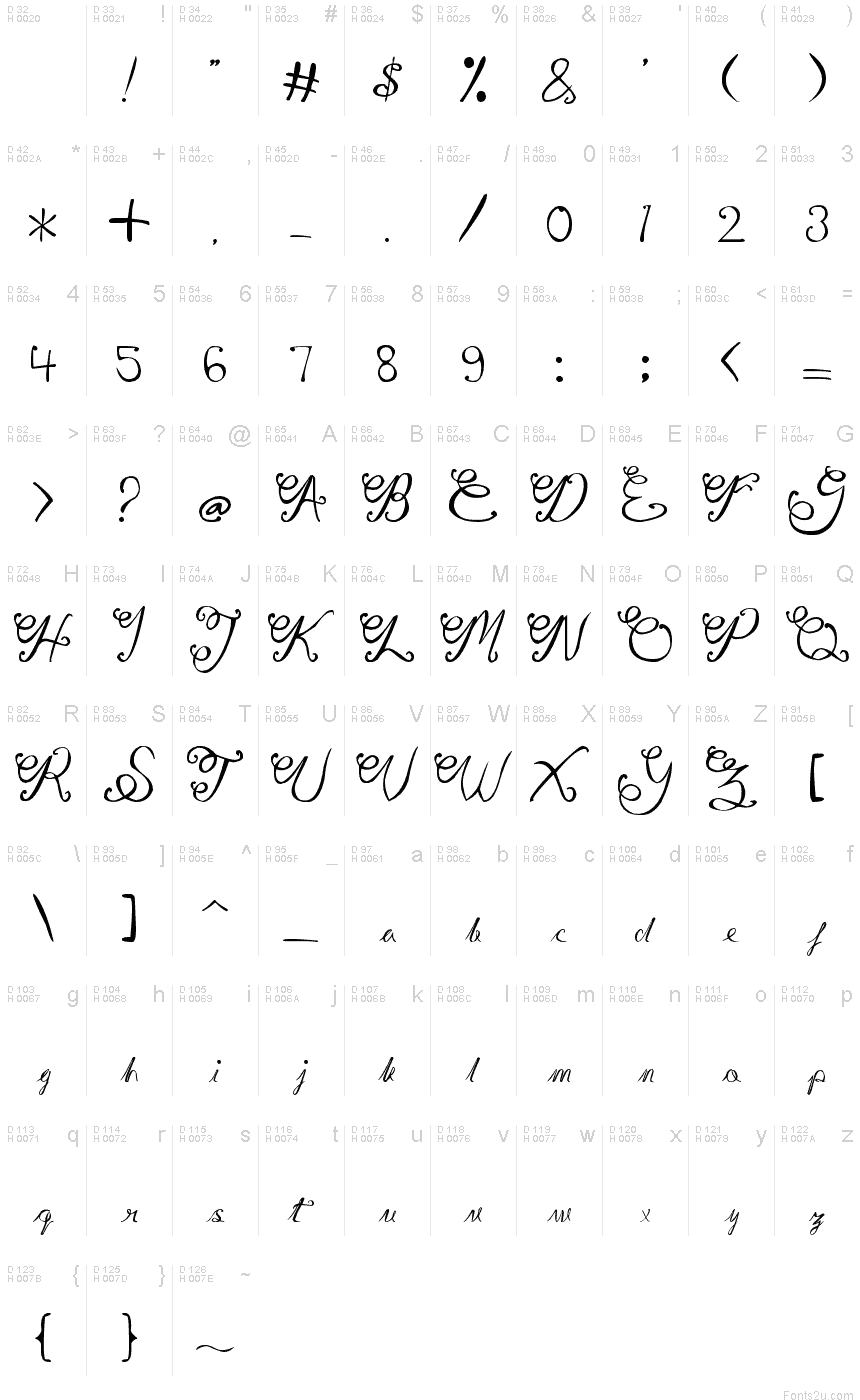
Gita Script is a free calligraphic script with sweeping, high-contrast strokes and unusually broad loops. Its capitals rise into tall flourishes, then drop into deep curls that often reach beneath neighboring letters. The narrow joins and abrupt changes of direction give the writing a lively, slightly theatrical pace.
As a decorative signature, it can shape fashion branding, perfume packaging, and event invitations around a graceful hand-drawn mark. Its extravagant curves also suit album artwork and romantic publishing, especially when the lettering is meant to become part of the ornament. It best serves designers seeking expressive, formal lettering.